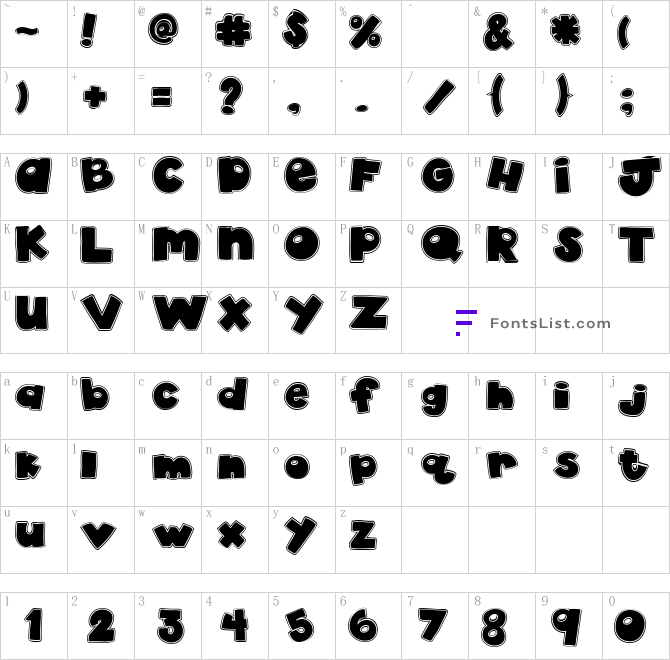
- Font Name:akaDylan Collage
akaDylan-Collage.ttf is a very beautiful artistic font, akaDylan-Collage.ttf is widely used in the design and printing of various books and pictures,akaDylan-Collage.ttf has a strong visual impact,akaDylan-Collage.ttf is a commonly used font in newspapers, magazines and books, and is used in posters, e-commerce Poster design, store design, logo design, font design and other fields.akaDylan-Collage.